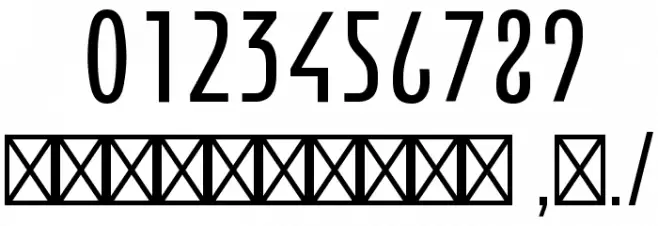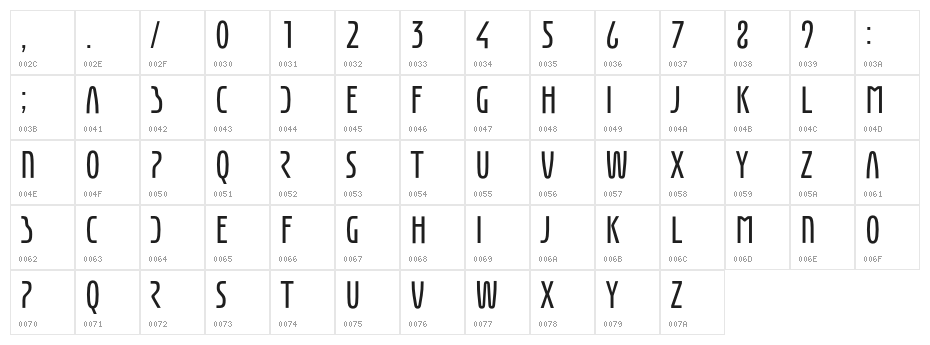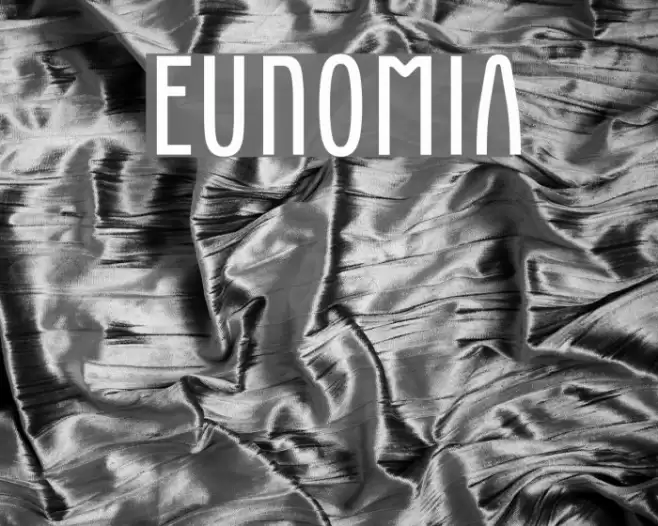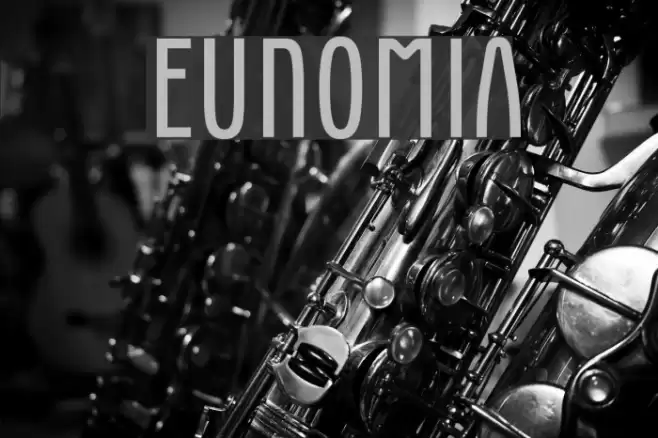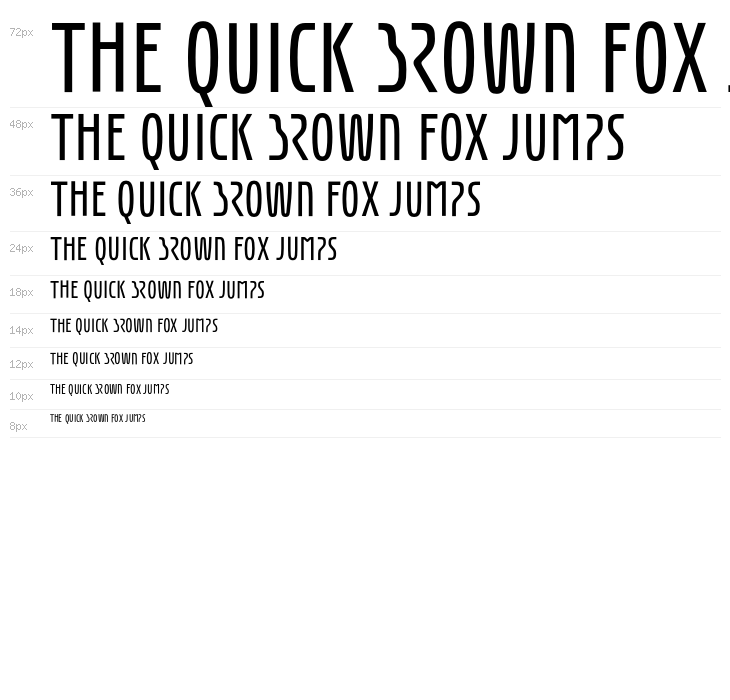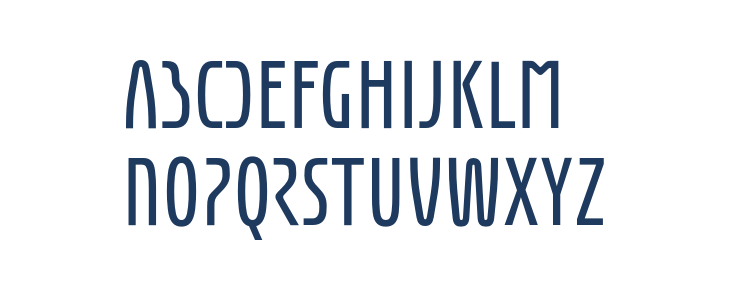
Eunomia Font
Eunomia Description
This font features a unique and modern design with a geometric and futuristic aesthetic. The characters are constructed with clean, straight lines and rounded edges, giving them a sleek and contemporary look. The uppercase letters are tall and narrow, while the lowercase letters maintain a consistent style, ensuring readability. Numbers are similarly styled, with a uniform height and width that complements the overall design. The special characters are distinct and maintain the geometric theme, adding versatility to the font. This font's design is ideal for projects that require a modern and innovative appearance.
| Proposed Projects | Ideal for branding, technology-related designs, futuristic themes, and modern advertising. |